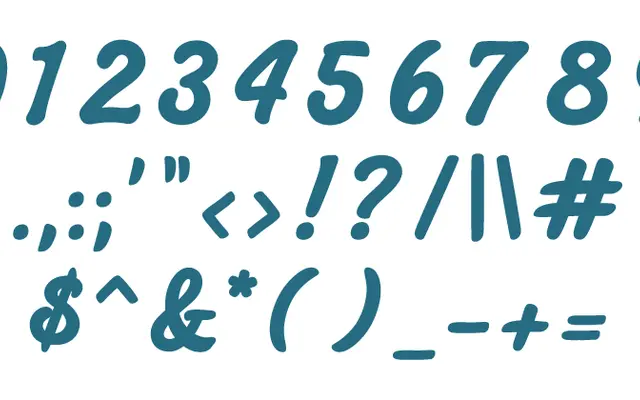
Blackbird Script
A casual display script originally commissioned for brand work, built from near-uniform strokes with subtle modulation at ligature terminals and a lightly bouncing baseline.
Designed initially as a secondary support face within a brand identity project, Blackbird Script holds its own as a standalone display typeface. Its strokes are nearly uniform, with gentle undulations appearing near the beginnings and ends of ligatures, counters and cast-offs. The baseline carries a slight bounce, and the face adapts well to all-caps settings with minor manual tracking adjustments.
A casual display script built from near-uniform strokes with slight stroke modulation at ligature terminals, bouncing baseline and all-caps compatibility place it firmly in the casual script category.